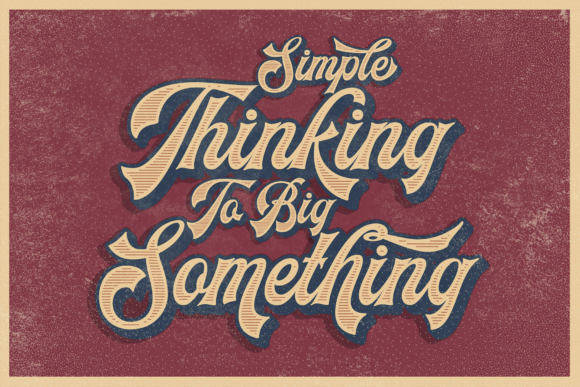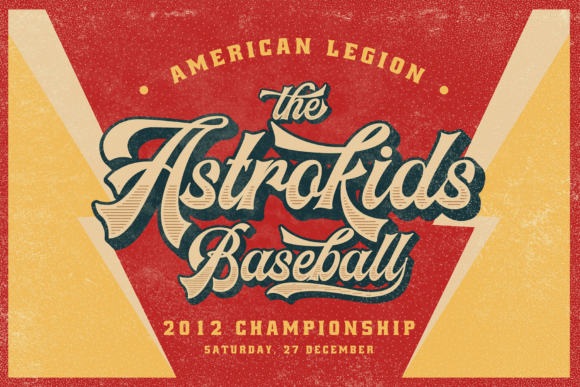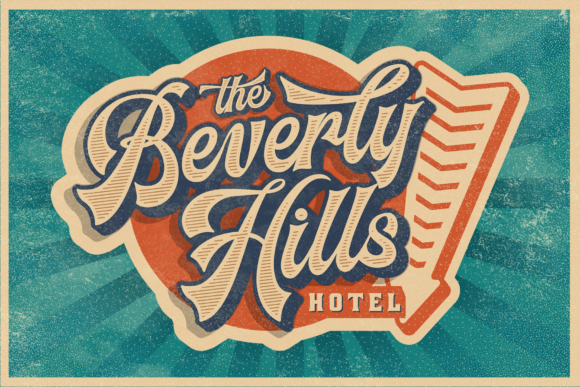
Introduction to Headster Family Font
As designers, we’ve all been there – staring at a blank page, waiting for that elusive spark of inspiration to strike. For me, it was a vintage label design that caught my eye in a thrift store, and suddenly, a world of creative possibilities opened up. That’s exactly what the Headster Family Font offers – a treasure trove of design inspiration, right at your fingertips.
With its bold script typeface and 5 unique fonts that can be layered to create a one-of-a-kind look, the Headster Family Font is the ultimate design resource for any creative project. Whether you’re working on a high-quality flyer, logo, badge, or packaging design, this font is sure to bring your vision to life. And the best part? It’s available for free download, complete with transparent backgrounds, making it a game-changer for designers of all levels.
Key Features of Headster Family Font
- High-quality, professional font design suitable for various creative projects
- Perfect for use in branding, logos, graphics, and other creative projects requiring a unique and stylish font
Honest Review: Headster Family Font
As a designer, I’m always on the lookout for high-quality design resources that can elevate my creative projects. Recently, I had the opportunity to work with the Headster Family Font, and I must say it’s been a game-changer. The font’s unique design and versatility have made it an excellent addition to my design arsenal.
- The font’s high-quality design and crisp lines make it perfect for digital and print projects.
- The transparent background allows for seamless integration with other design elements.
- The font family includes a variety of styles, from sans-serif to script, making it versatile for different creative projects.
- The font may not be suitable for very small text sizes due to its detailed design.
- The font family is relatively small, so it may not be ideal for large-scale projects that require multiple font styles.
Overall, I’m thoroughly impressed with the Headster Family Font. Its high-quality design, versatility, and free download make it an excellent resource for designers. While it may have some limitations, I believe it’s a valuable addition to any design library.
The Headster Family Font is ideal for a variety of creative projects, including social media graphics, posters, infographics, presentations, and reports. It’s also a great choice for branding and marketing materials, such as business cards and brochures.